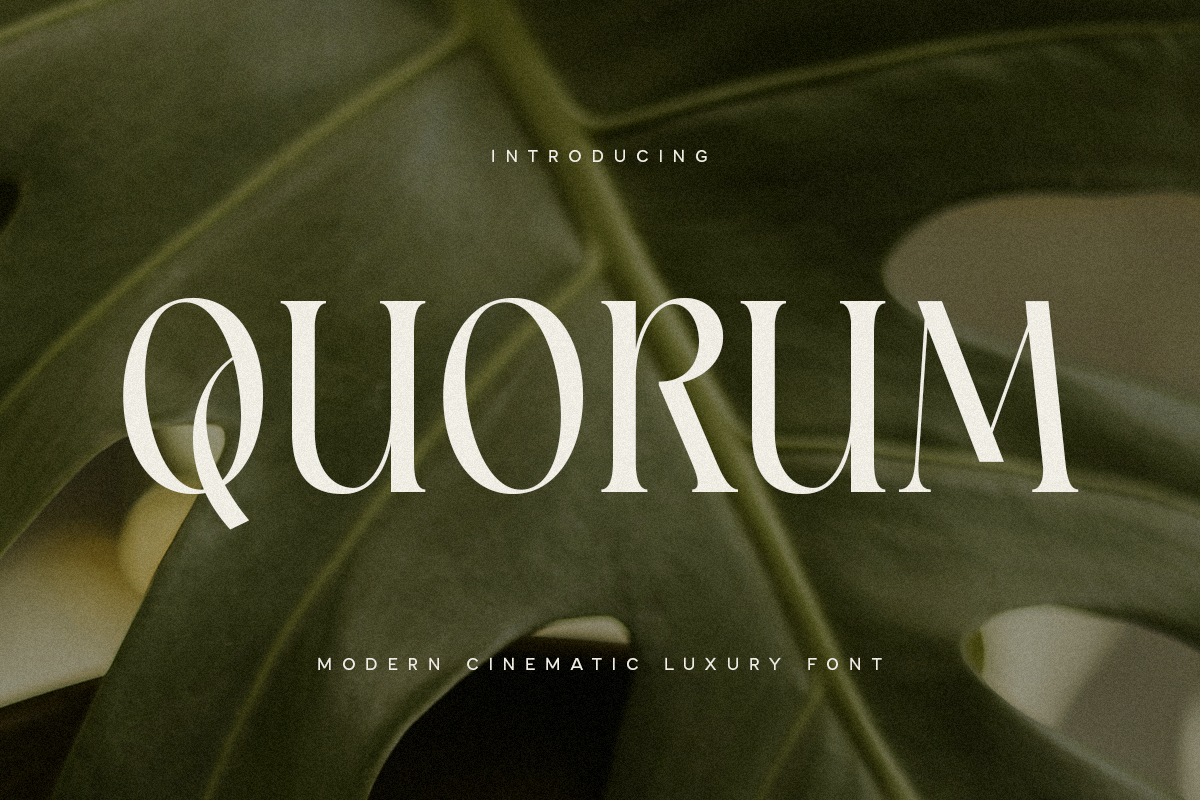
Quorum - Cinematic Luxury Font
Introducing Quorum, the epitome of luxury and cinematic elegance in a serif font. Perfectly crafted for sophisticated and high-end designs, Quorum brings a touch of class and refinement to any project.
Quorum Font Features:
- Luxury Design: A luxurious serif style ideal for upscale and sophisticated projects.
- Cinematic Appeal: Perfect for film titles, movie posters, and dramatic visual content.
- Versatile Usage: Suitable for branding, editorial layouts, elegant invitations, and more.
- Inspirational Previews: Includes sample designs to inspire your creative projects.
Elevate your designs with Quorum, the luxury serif font that exudes sophistication and style. Whether for high-end branding, cinematic projects, or elegant typography, Quorum adds a timeless and refined touch to your work. Make a statement with Quorum and let your designs shine with unparalleled elegance.